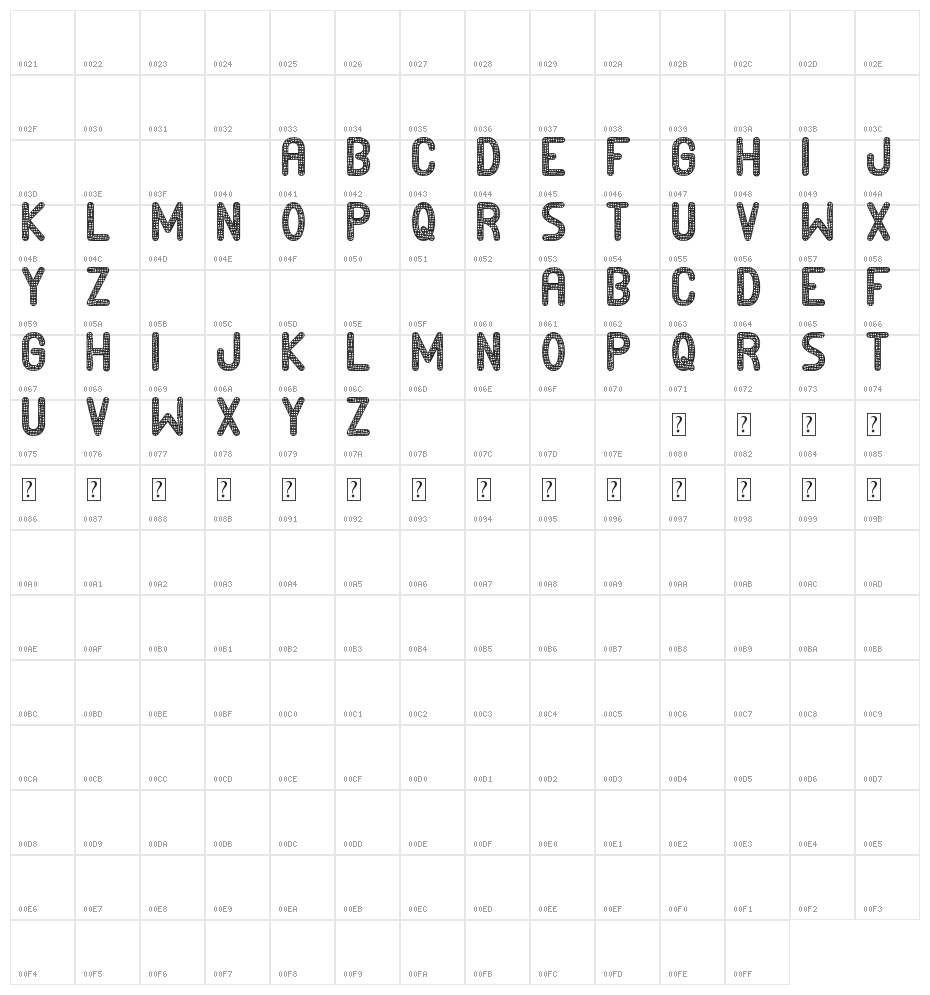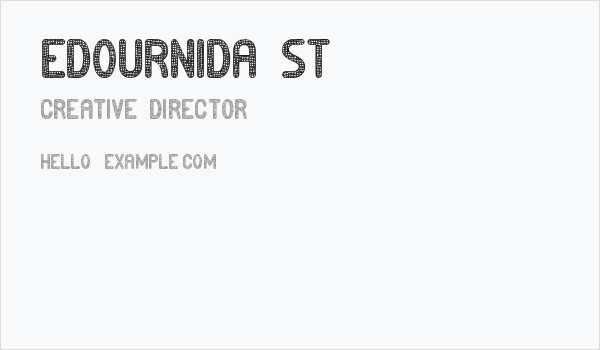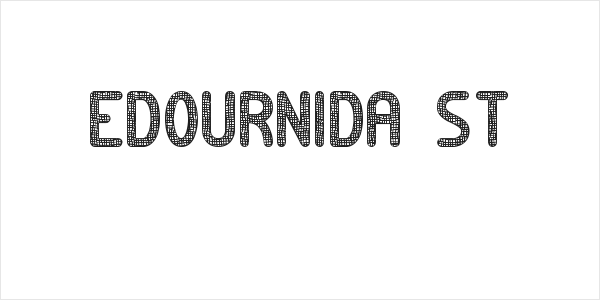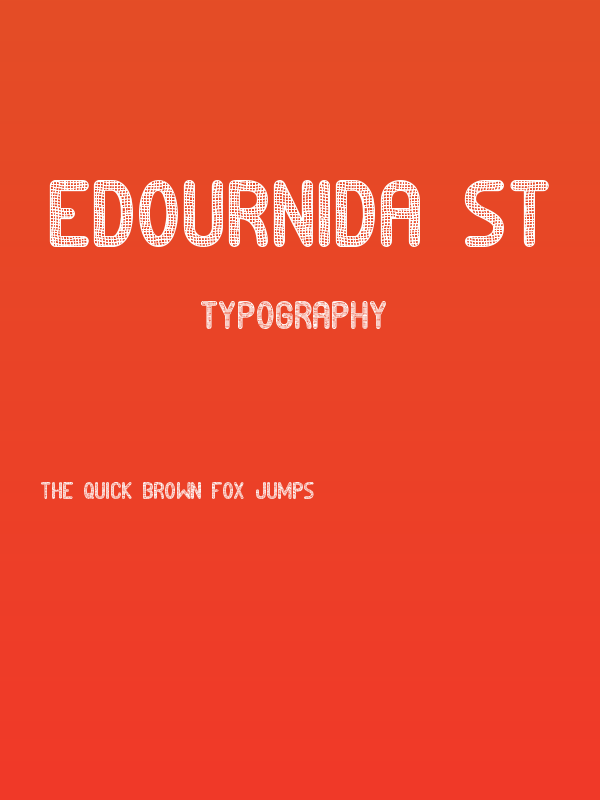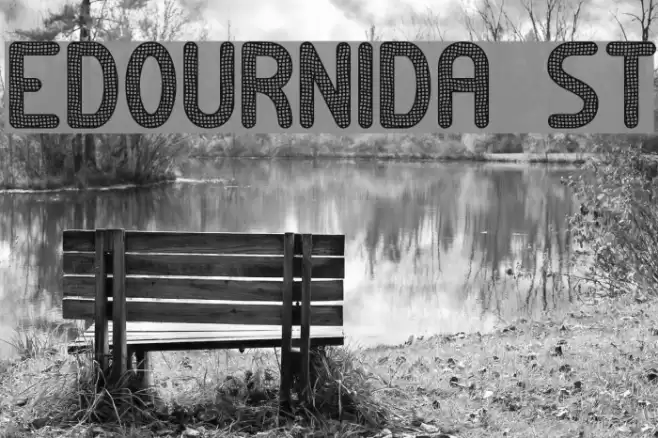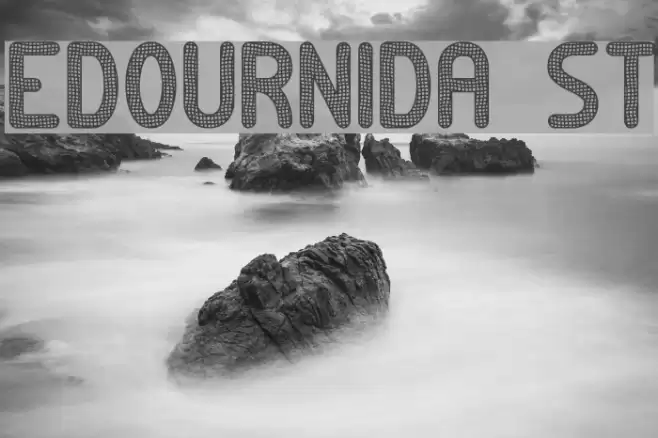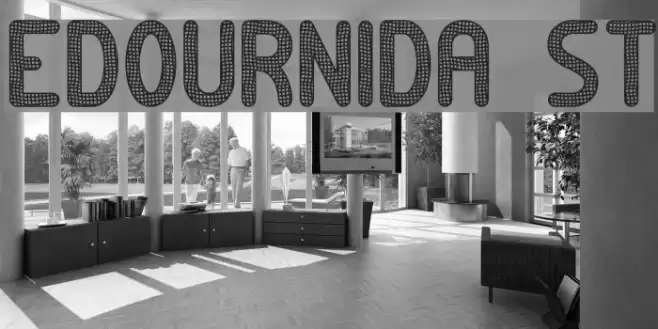
Edournida St Font
Edournida St Description
This font features a unique, decorative style with a grid-like pattern filling each character. The uppercase letters are bold and rounded, giving a playful yet structured appearance. The consistent pattern within each letter adds a textured effect, making it stand out for creative projects. The uniformity in the design ensures readability while maintaining a distinct artistic flair. This font is ideal for projects that require a touch of whimsy and creativity, such as children's books, playful branding, or artistic posters. Its decorative nature makes it less suitable for body text but perfect for headlines and titles.
| Proposed Projects | Children's books, playful branding, artistic posters, creative headlines. |